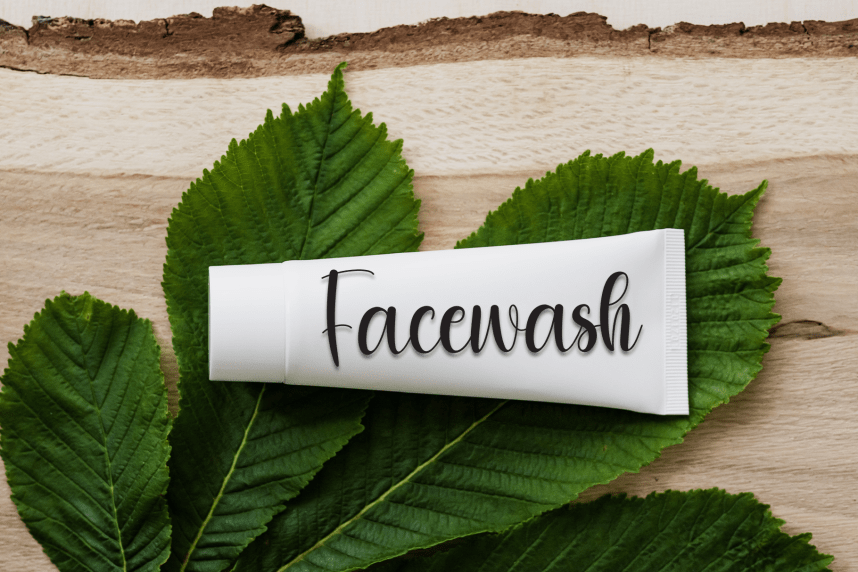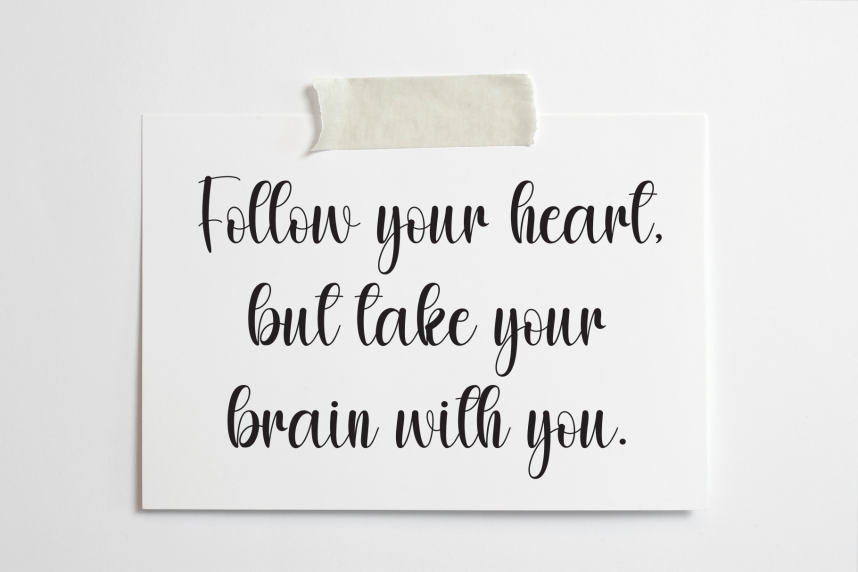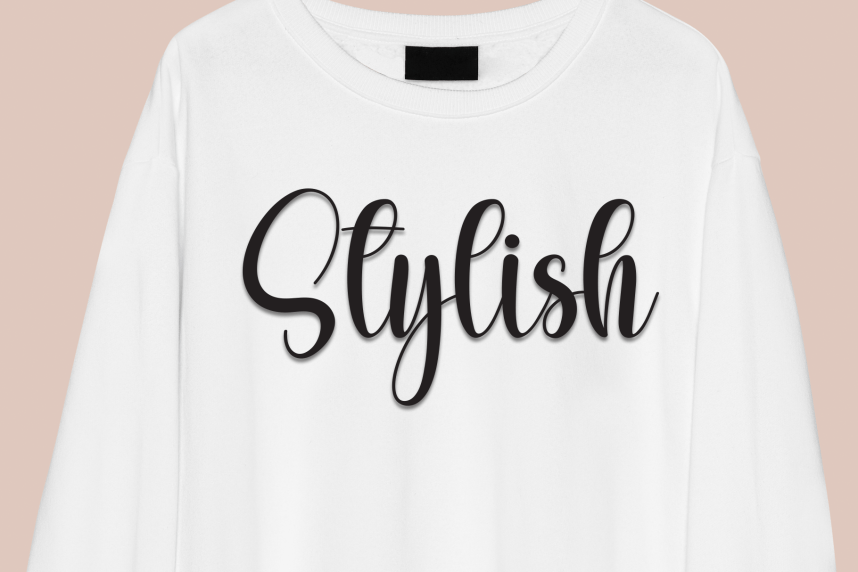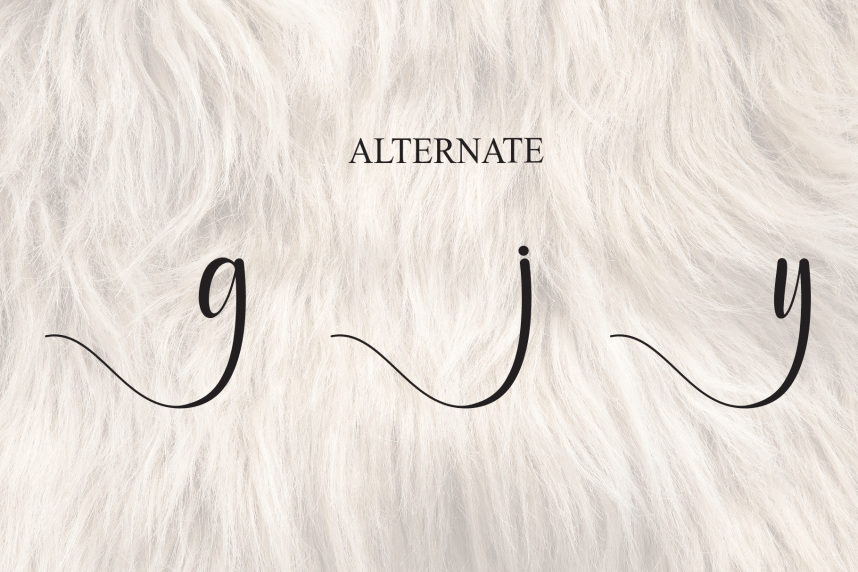
Bulky – Modern Handmade Font
Bulky – Modern Handmade Font is a sweet and friendly handwritten display font. Cute and fun, this font is ideal for writing wedding invitations, cards, or any other design that might need a playful touch!